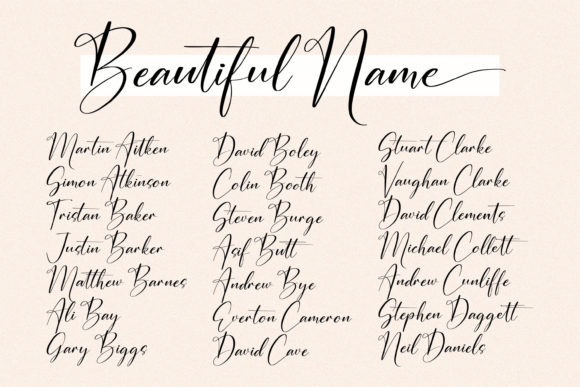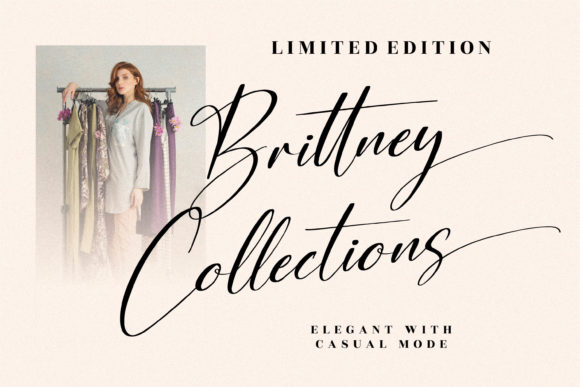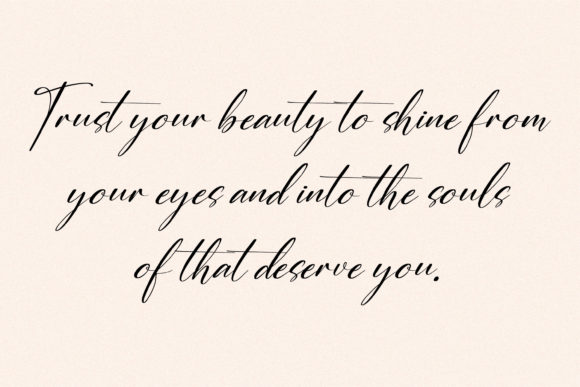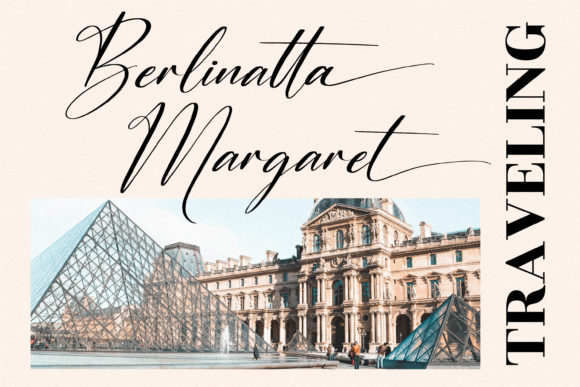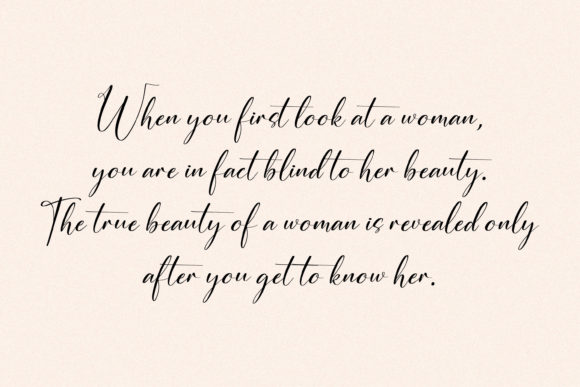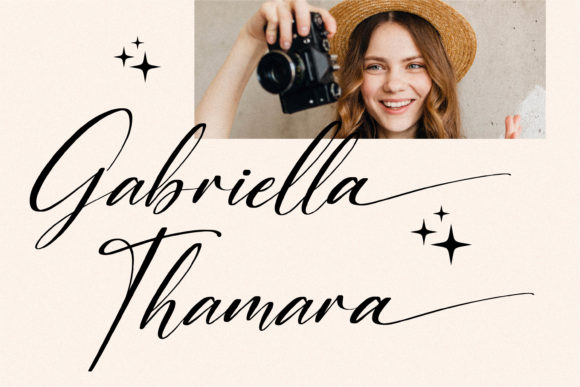
Auristtela Patricia Font: Elevate Your Designs with Elegance and Class
In the world of typography, few fonts manage to capture the essence of elegance and class as effectively as Auristtela Patricia Font. This lovely and delicate script font is a masterpiece of design, carefully crafted to bring a refreshing and beautiful look to any design project. Whether you’re a seasoned designer or a crafty DIY enthusiast, Auristtela Patricia is sure to become your go-to font for creating stunning visual content.
The Story Behind Auristtela Patricia Font
Auristtela Patricia Font was designed with a clear purpose in mind: to provide a font that exudes sophistication and refinement. The creator of this beautiful script font understood the need for a typeface that could add a touch of luxury to designs, making it perfect for projects that require a high level of elegance. With its delicate strokes and flowing curves, Auristtela Patricia Font is sure to impress even the most discerning designers and crafters.
Key Features of Auristtela Patricia Font
So, what makes Auristtela Patricia Font so special? Here are some of its key features:
- Lovely and Delicate Script: Auristtela Patricia Font boasts a beautiful, hand-written script that adds a touch of warmth and personality to any design.
- Elegant and Classy: This font is perfect for designs that require a high level of sophistication, making it ideal for luxury brands, high-end products, and elegant events.
- Refreshing and Beautiful: With its unique and stylish design, Auristtela Patricia Font is sure to refresh and revitalize your designs, making them stand out from the crowd.
- Highly Versatile: This font can be used for a wide range of design projects, from logos and branding to invitations, packaging, and more.
Uses for Auristtela Patricia Font
Auristtela Patricia Font is an incredibly versatile typeface that can be used for a variety of design projects. Here are some ideas to get you started:
- Logo Design: Create a stunning logo for your business or brand with Auristtela Patricia Font, perfect for luxury brands, beauty products, and high-end services.
- Wedding Invitations: Add a touch of elegance to your wedding invitations, save-the-dates, and other stationery with this beautiful script font.
- Packaging Design: Elevate your product packaging with Auristtela Patricia Font, perfect for high-end products, cosmetics, and luxury goods.
- Social Media Graphics: Create stunning social media graphics, including Facebook posts, Instagram stories, and Twitter headers, with this lovely and delicate font.
Tips for Using Auristtela Patricia Font
To get the most out of Auristtela Patricia Font, here are some tips to keep in mind:
- Pair with Neutral Backgrounds: Pair Auristtela Patricia Font with neutral backgrounds, such as white, beige, or light gray, to make it stand out.
- Experiment with Colors: Try pairing Auristtela Patricia Font with different colors, such as gold, blush, or navy blue, to add a touch of elegance to your designs.
- Use for Headings and Titles: Use Auristtela Patricia Font for headings and titles to add a touch of sophistication and refinement to your designs.
In conclusion, Auristtela Patricia Font is a beautiful and elegant script font that is sure to elevate your designs to the next level. With its delicate strokes, flowing curves, and sophisticated design, this font is perfect for designers and crafters who need a high level of elegance and refinement in their work. Whether you’re creating logos, wedding invitations, packaging, or social media graphics, Auristtela Patricia Font is the perfect choice.